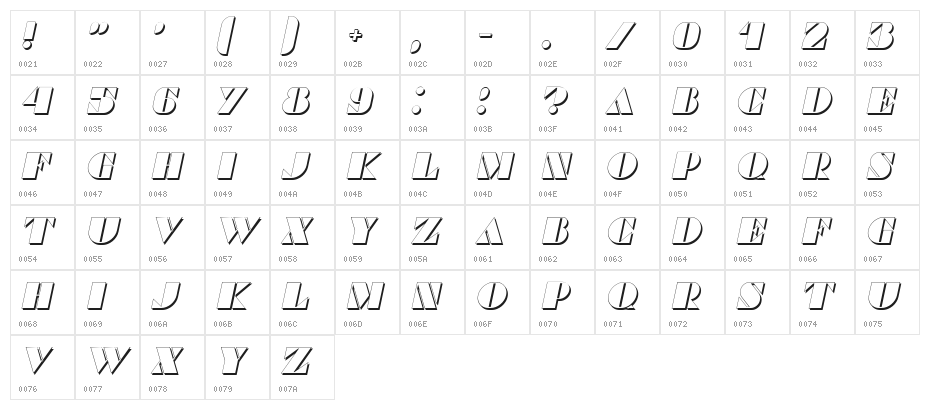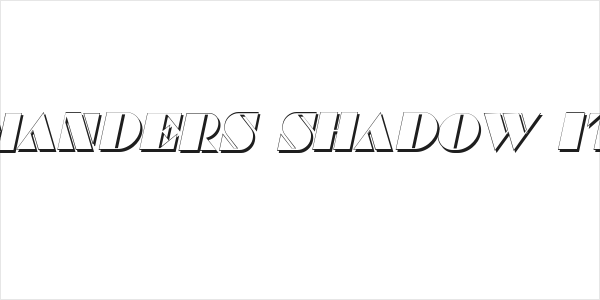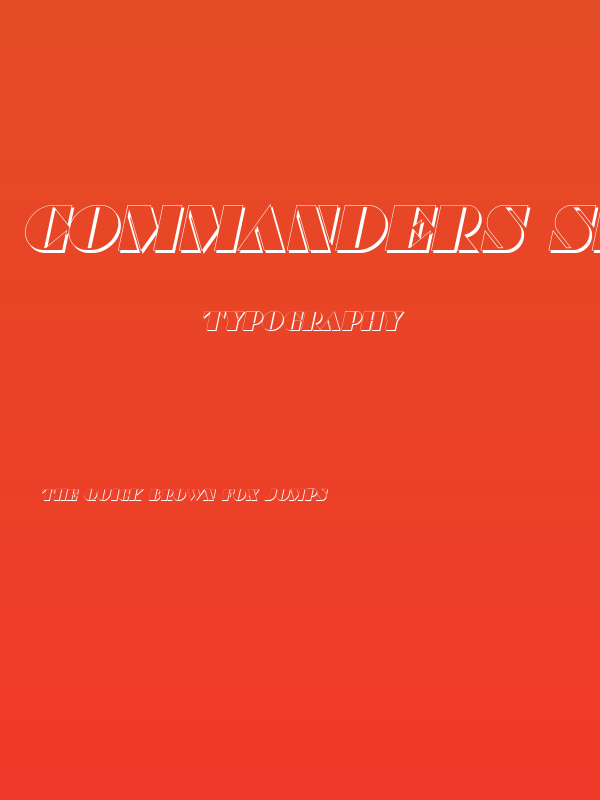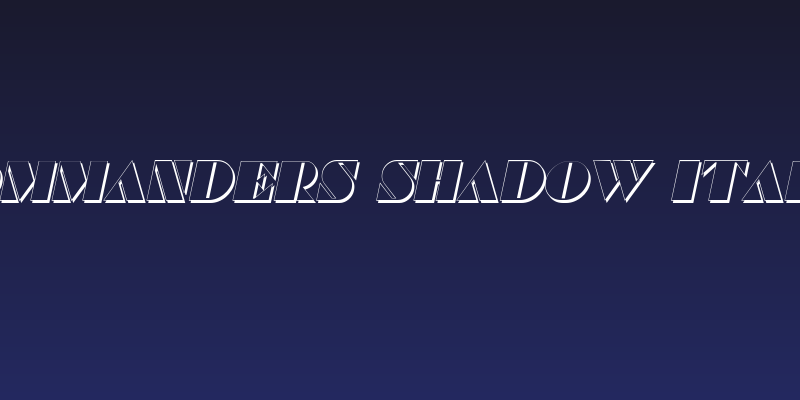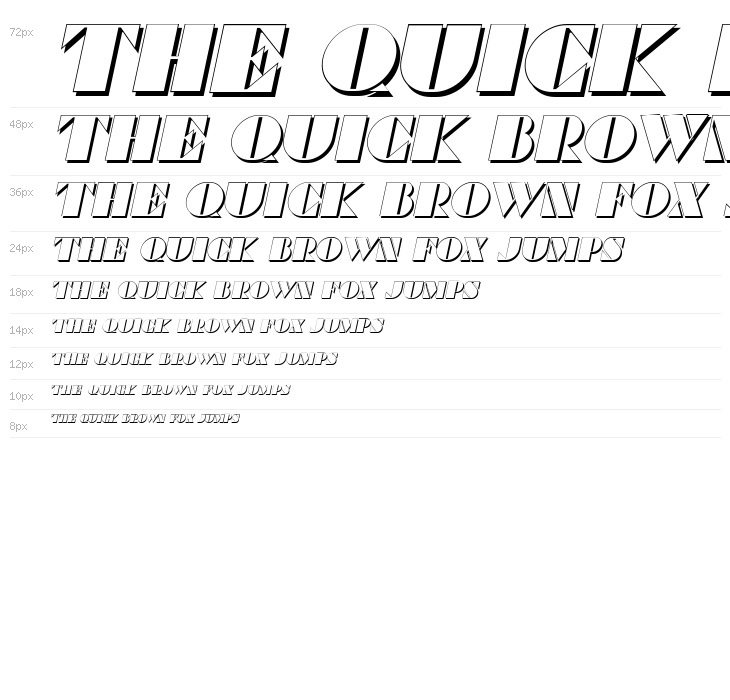
Commanders Shadow Italic Font
Commanders Shadow Italic Description
This font features a bold, italicized style with a distinct shadow effect that gives it a three-dimensional appearance. The uppercase letters are angular and geometric, with sharp edges and a sense of movement. The numbers and special characters maintain this dynamic style, making them stand out with their bold presence. The shadow effect adds depth, creating a visually striking and modern look. The font is suitable for projects that require a strong, impactful statement, combining both elegance and boldness in its design.
| Proposed Projects | Ideal for headlines, posters, branding, and any design needing a bold, impactful statement. |